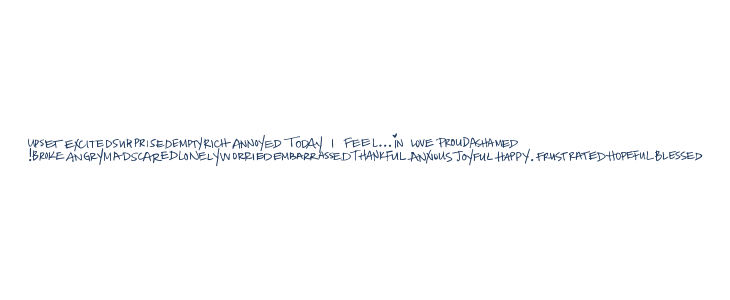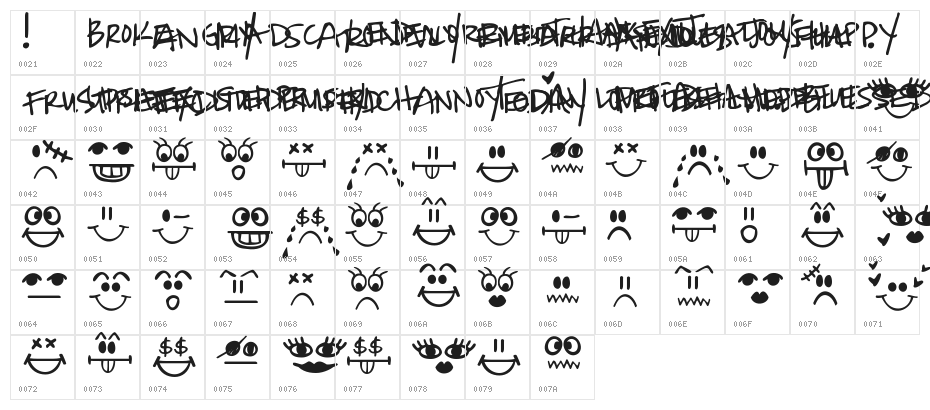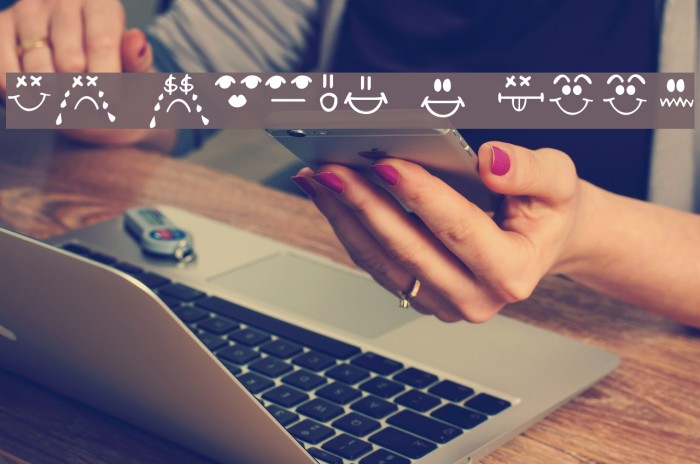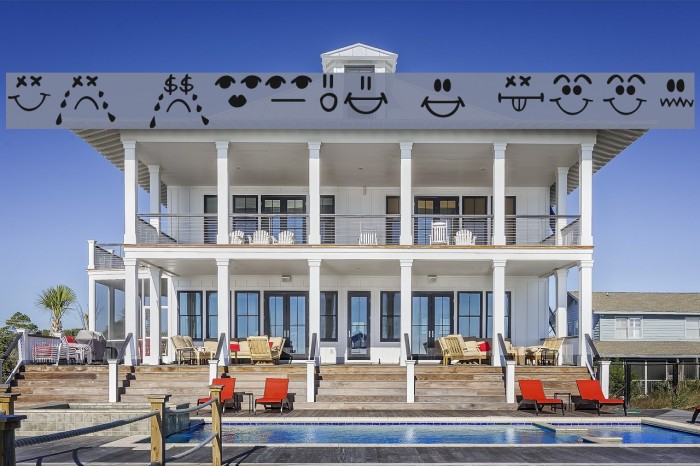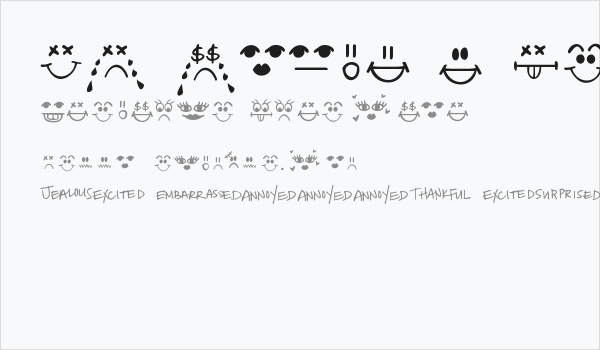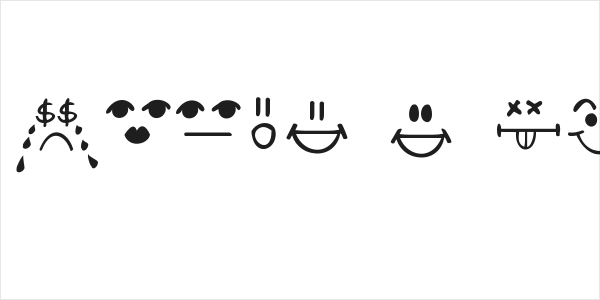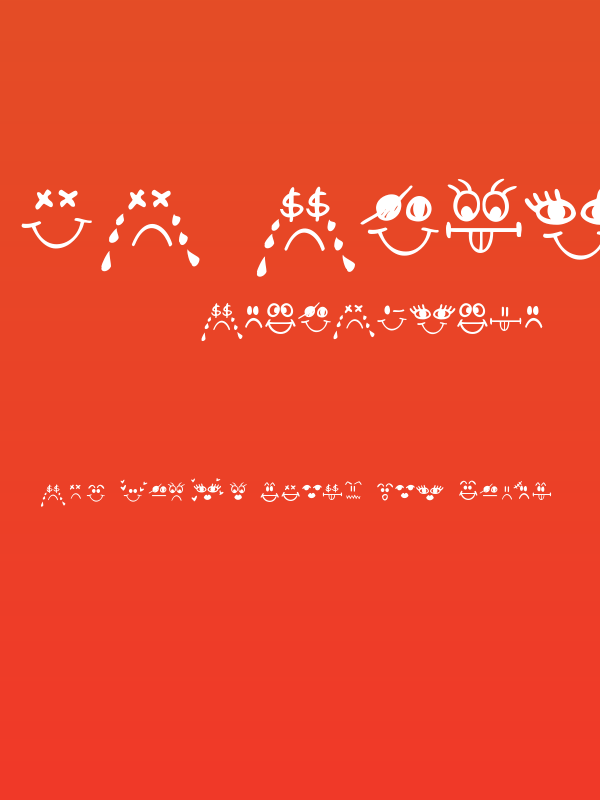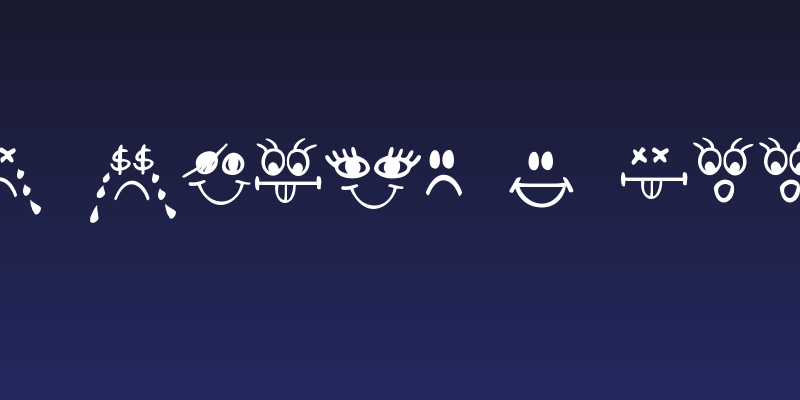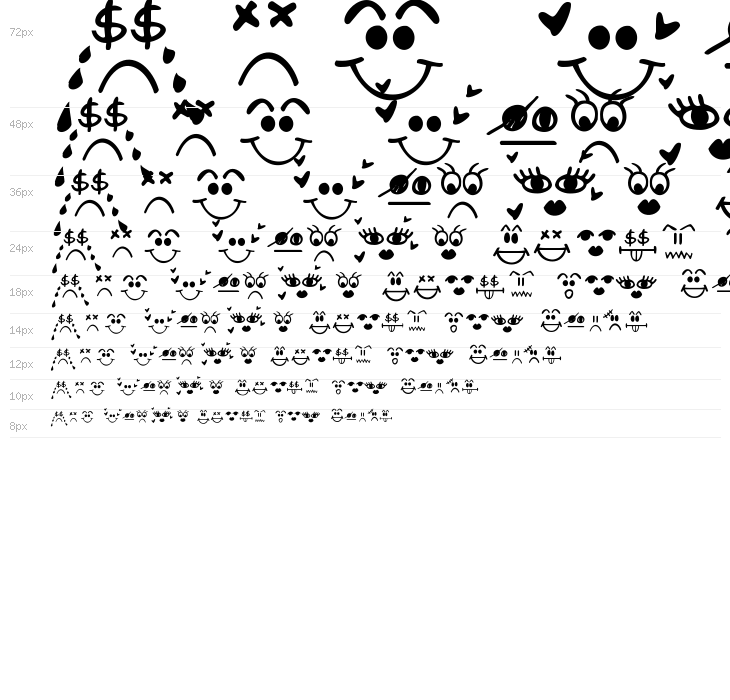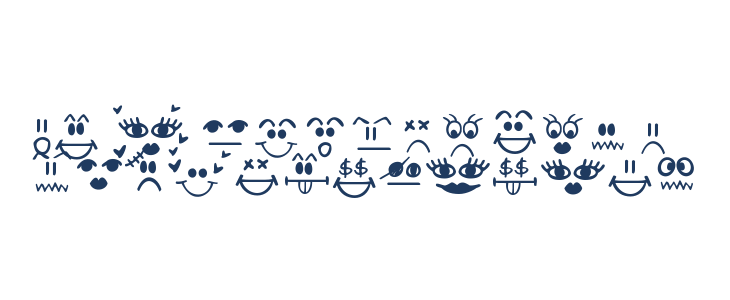
KG Today I Feel Font
KG Today I Feel Description
This font is a playful and expressive collection of emoticon-like characters that convey a wide range of emotions. Each character is uniquely designed with exaggerated facial features, such as big eyes, wide smiles, and quirky expressions. The style is whimsical and cartoonish, making it ideal for projects that require a fun and lighthearted touch. The font includes a variety of faces that depict emotions like happiness, sadness, surprise, and more, each with distinct characteristics. The overall design is bold and eye-catching, with a consistent line weight that ensures clarity and readability. This font is perfect for creative projects that aim to communicate emotions visually.
| Overall Style | Whimsical and Cartoonish |
| Use Case | Logos, Headlines, Social Media Graphics |
| Proposed Projects | Ideal for children's books, greeting cards, social media graphics, and playful branding projects. |